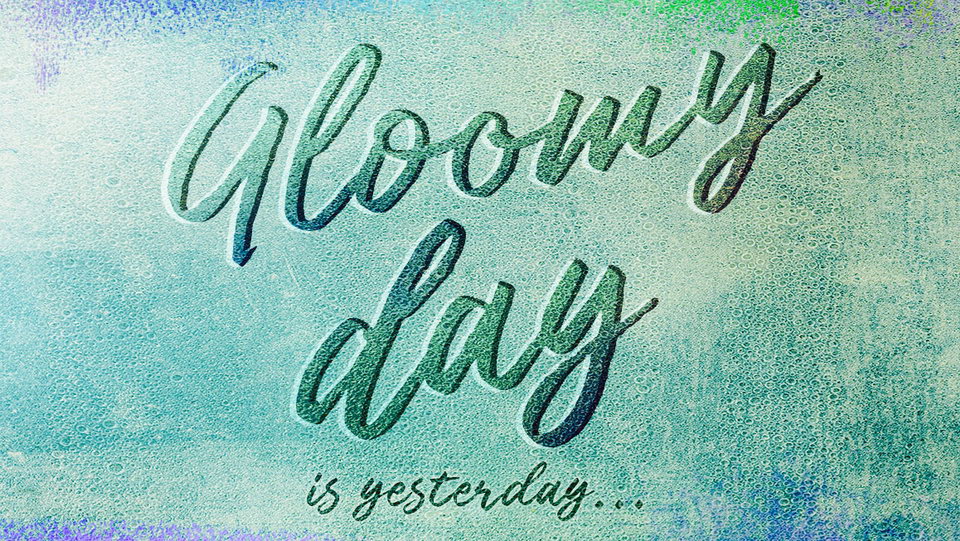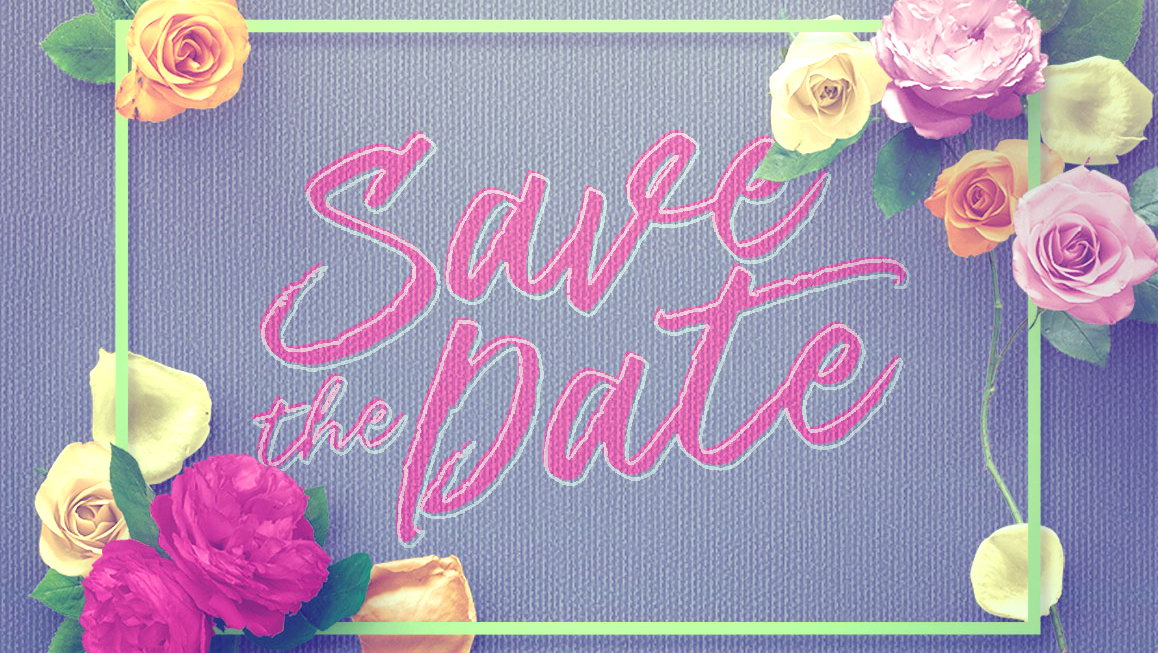
Strike One is a lovely script font with natural handwriting style. It present more complete than ever, consisting of Opentype Features; standard ligatures, contextual alternates and 11 swash.
Strike one is perfect for a wedding decoration, letters and cards, labels and branding, social media, printsd quotes and much more.